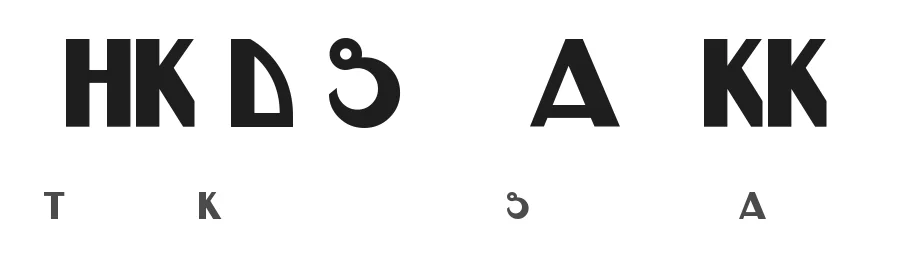
About Monotoon KK Font
A sturdy condensed type with generous letter spacing, using geometry to the limit.
Monotoon KK Font is a versatile sans-serif font that works for both headings and body text. Pair it with a contrasting serif or slab serif font to add visual interest and a clear distinction between titles and body copy.
Monotoon KK Font